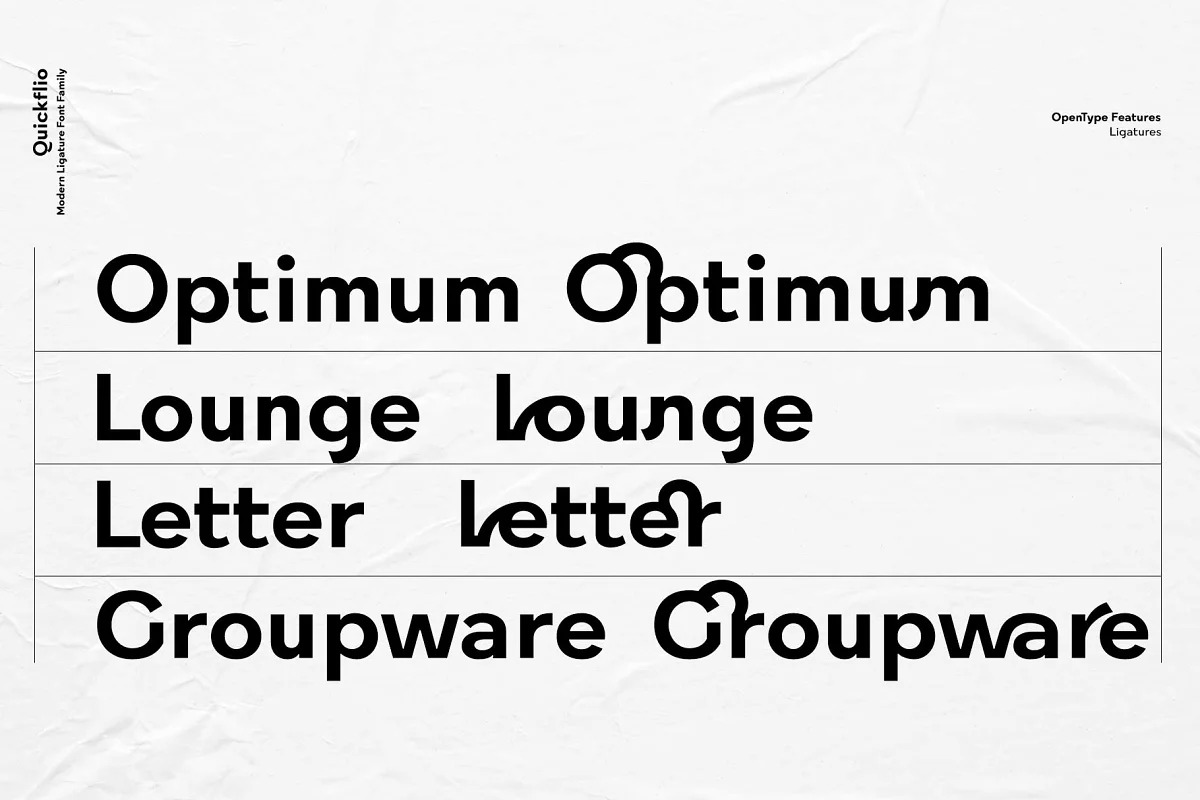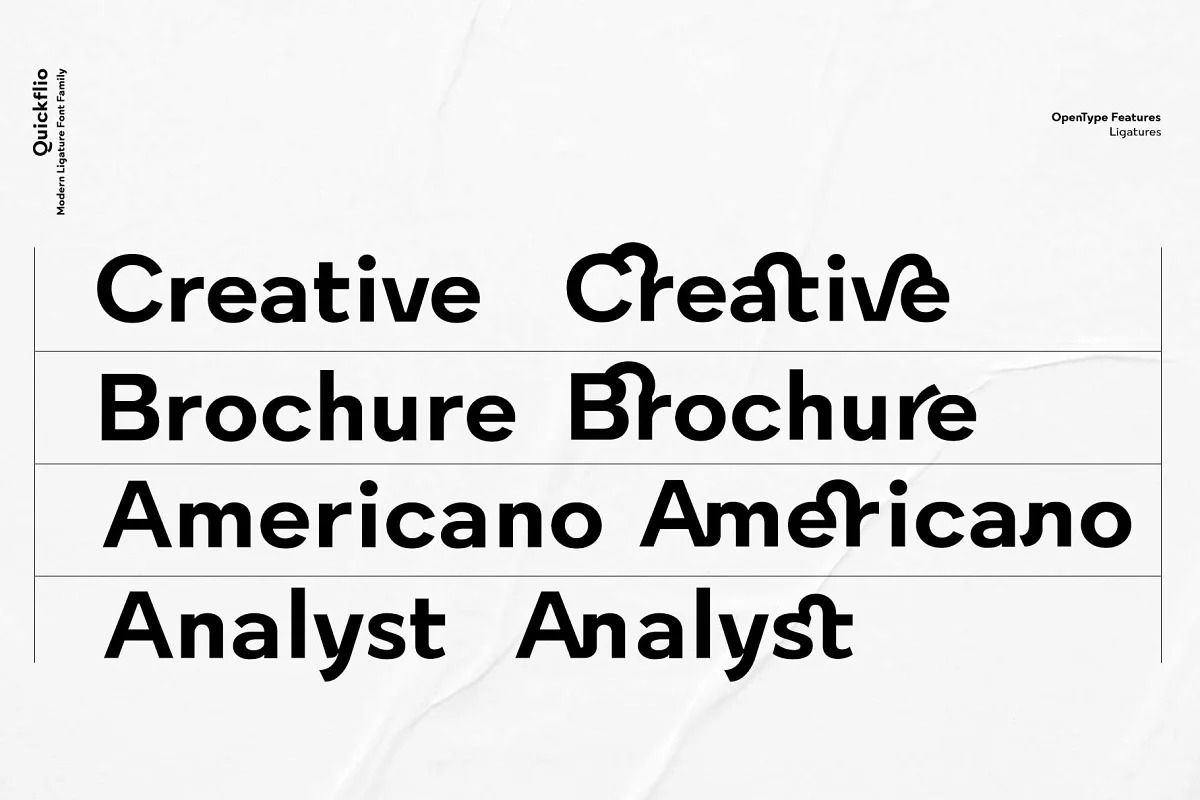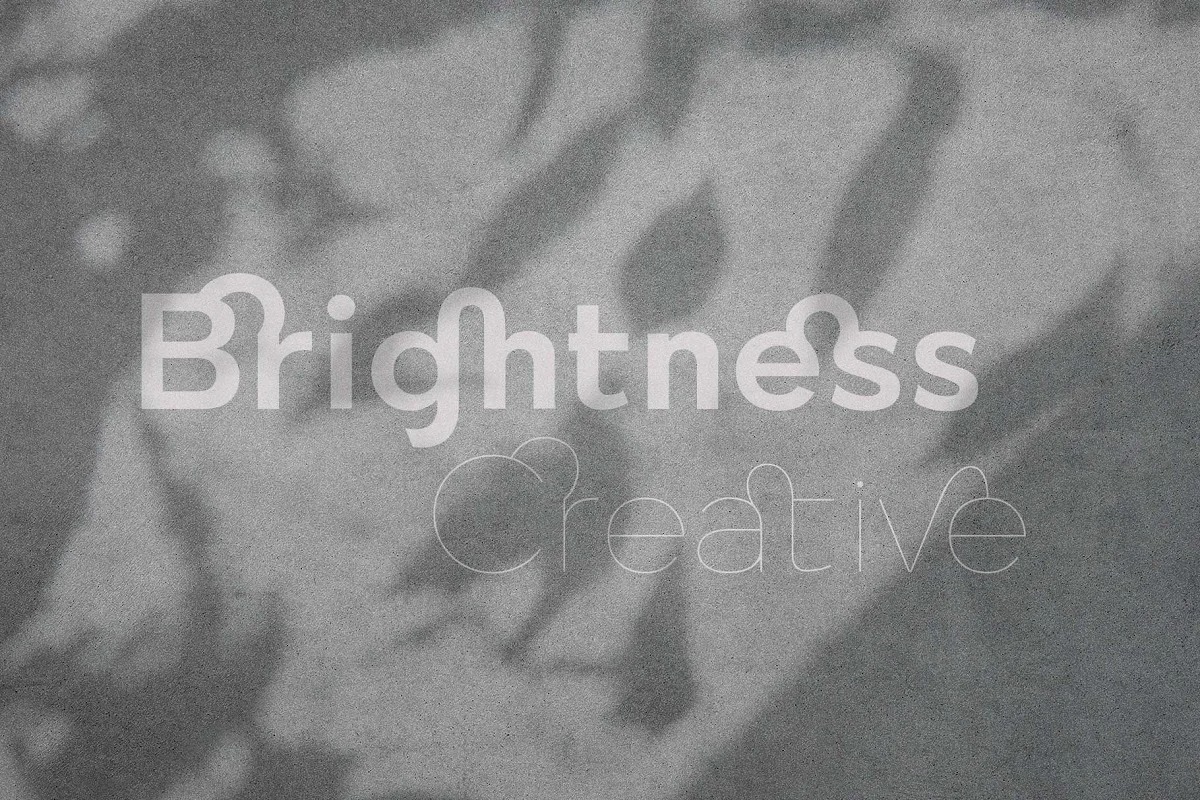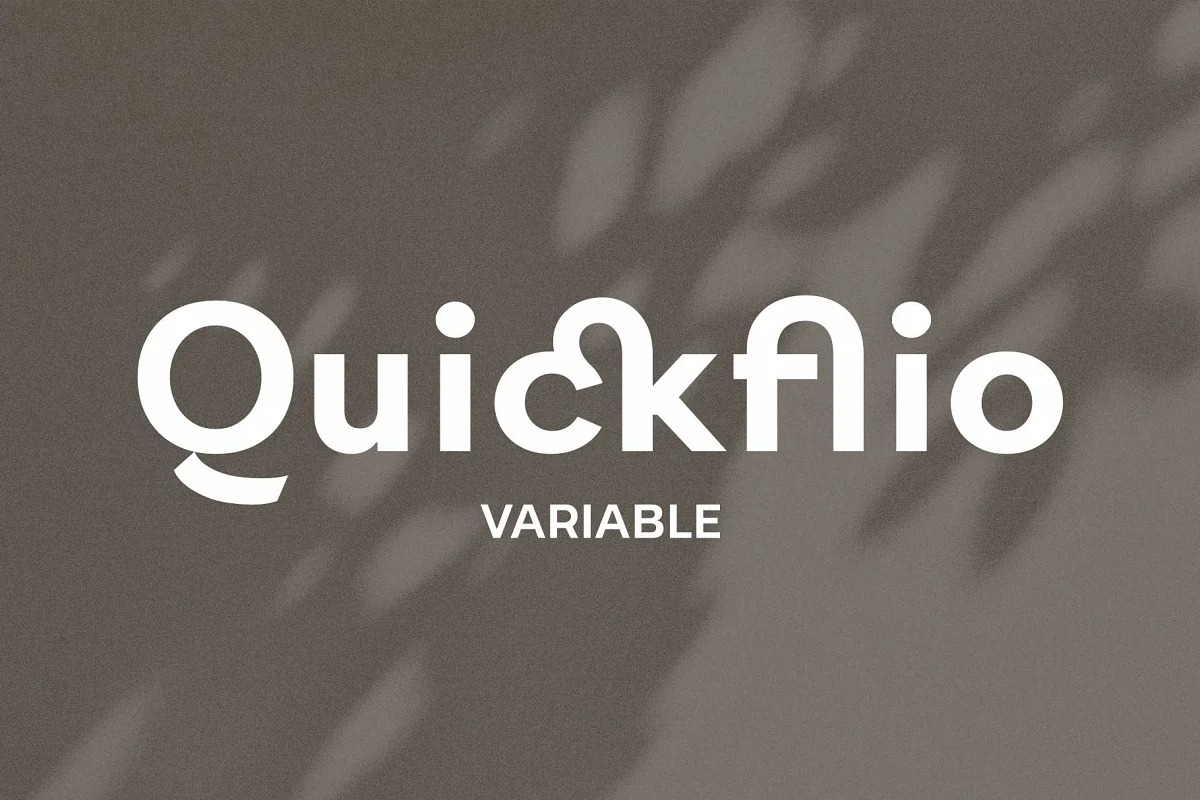
Quickflio Sans Serif Font is a condensed font family with a display character and neo-grotesque nature, friendly and energetic. It will be the best choice for designers as it contains a variable font with two axes.
A variety of styles, including stem widths from 10pt to 220pt, will be an exciting attempt for unique typography. And, 44 beautiful and amazing ligatures will make your imagination deeper and richer. All ligatures of this font family are included in Standard Ligatures. Your choices become easier and clearer.